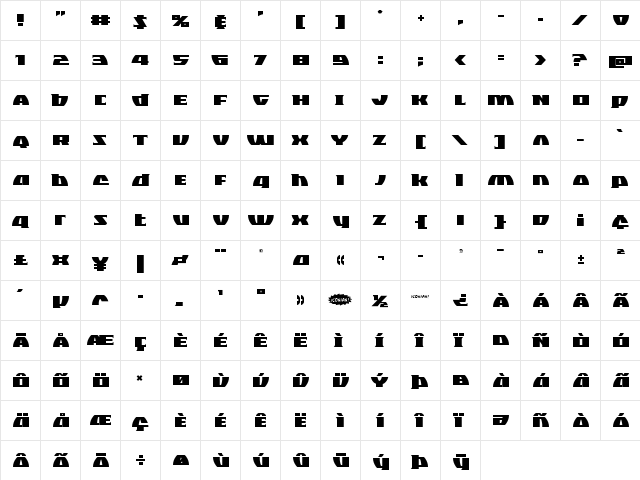
Black Bishop Regular Font Preview
Black Bishop Regular
Black Bishop Regular Font Details
Design Context for Black Bishop Typeface
Black Bishop is a composed and adaptable typeface that performs quietly and consistently across a wide range of design contexts.
Pro Tip: Pair Black Bishop with a font of contrasting weight or personality to build a more expressive typographic hierarchy.